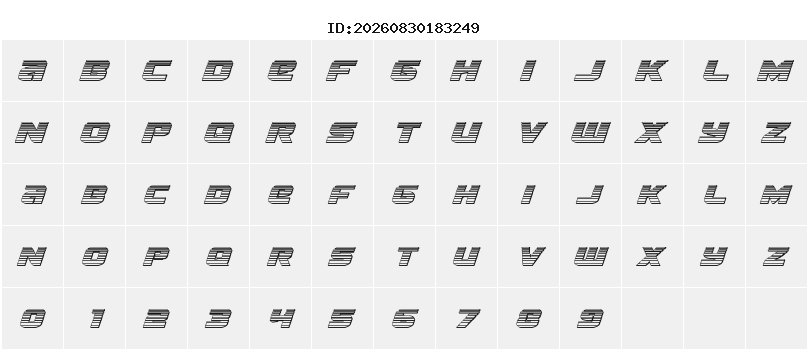
• Font Name: Terran Chrome Italic
• Full Font Name: Terran Chrome Italic
About Terran Chrome Italic.ttf
Terran Chrome Italic.ttf is a modern, elegant sans-serif font designed for ultimate readability and visual harmony. Perfect for branding, headlines, web design, and print materials.